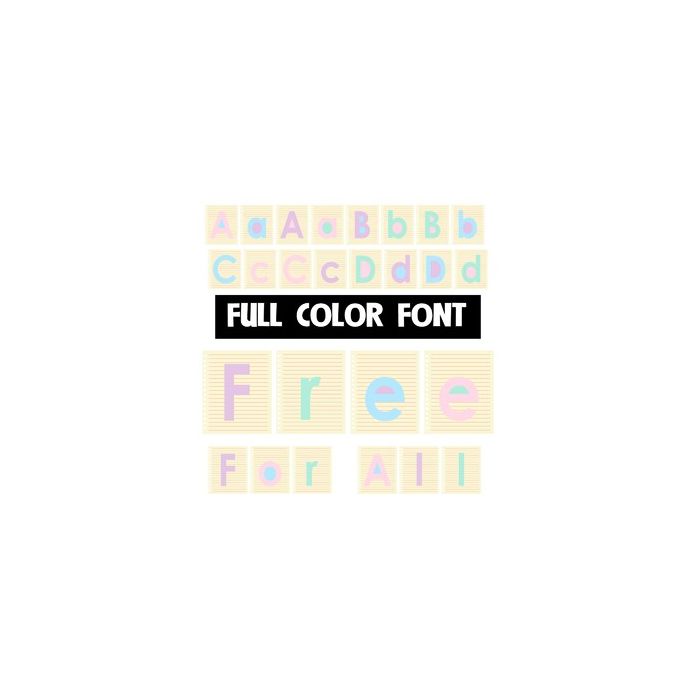
This full-color font features bold sans serif lettering on little yellow notes in a pastel, spring palette. There is an alt case w/ additional colors you can access through your system or Silhouette's glyph map.